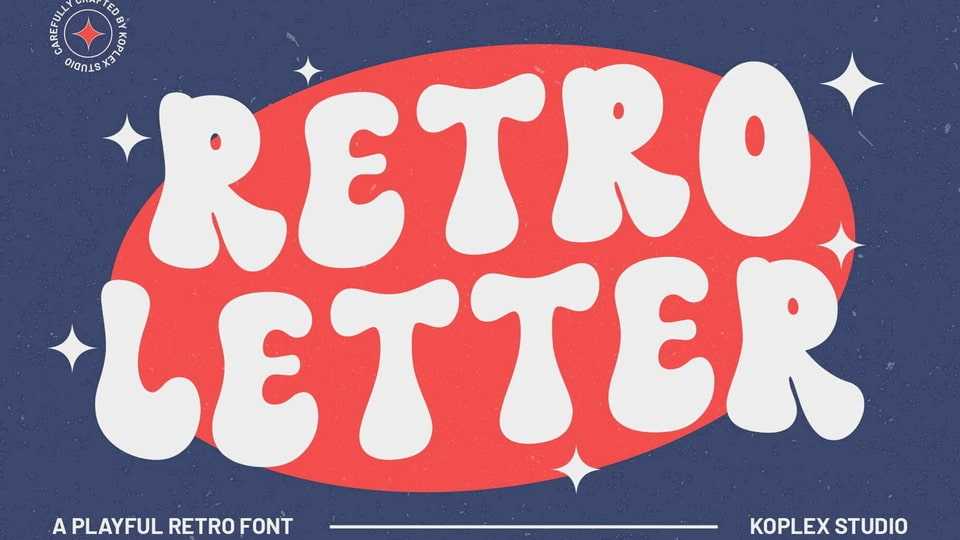
Download Retro Letter font, a bold and playful retro typeface inspired by groovy 70s bubble letters. This bubble font combines nostalgic charm with modern design, making it perfect for creative projects.
Designer: Koplexs Studio